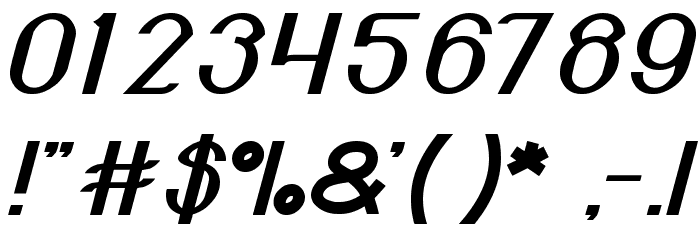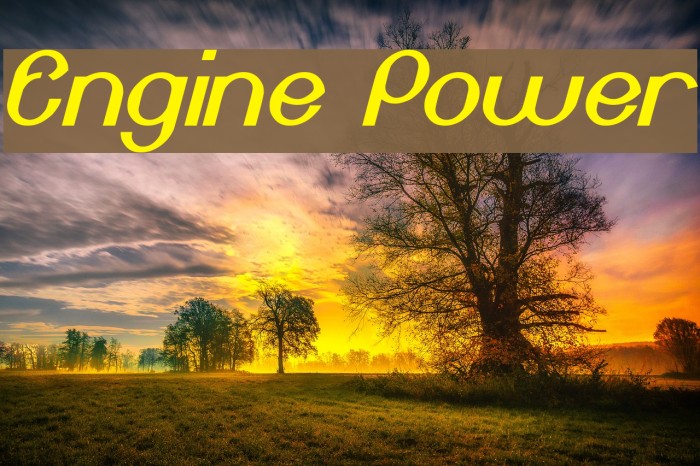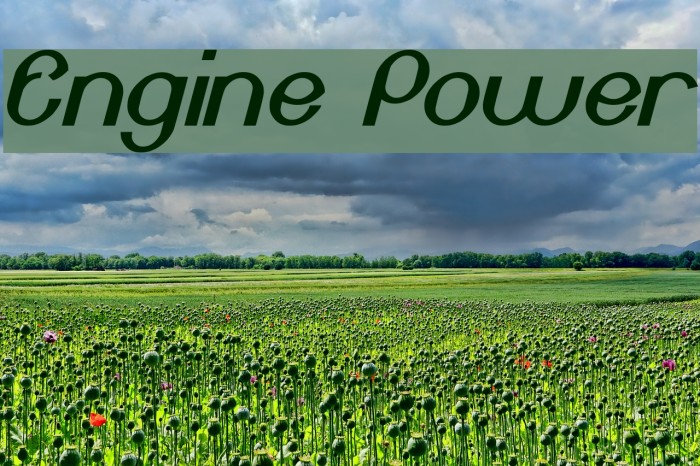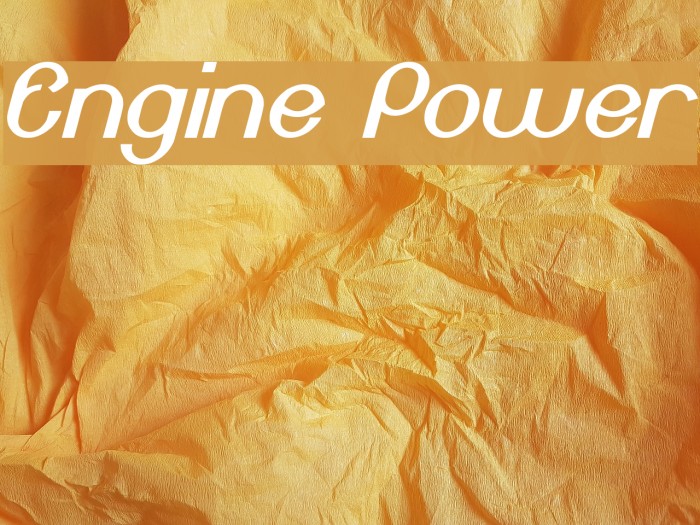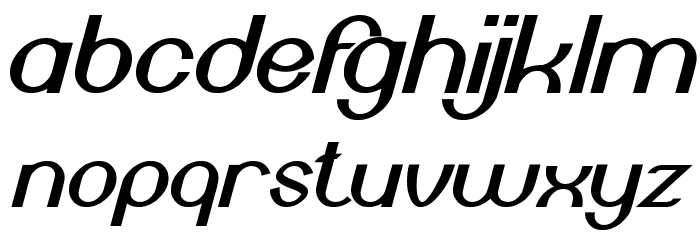
Engine Power Font
Engine Power Description
This font features a sleek, modern design with a slight slant, giving it a dynamic and energetic appearance. The characters are crafted with smooth curves and a consistent stroke width, providing a clean and uniform look. The uppercase letters are bold and commanding, while the lowercase letters maintain a harmonious flow. The numerals are clear and easily distinguishable, making them suitable for various applications. Special characters are designed with the same attention to detail, ensuring a cohesive overall style. This font's contemporary aesthetic makes it ideal for projects that require a touch of sophistication and modernity.
| Categories | Round |
| Use Case | Headlines, Logos, Advertising |
| Proposed Projects | Ideal for branding, advertising, and digital media projects that require a modern and energetic feel. |